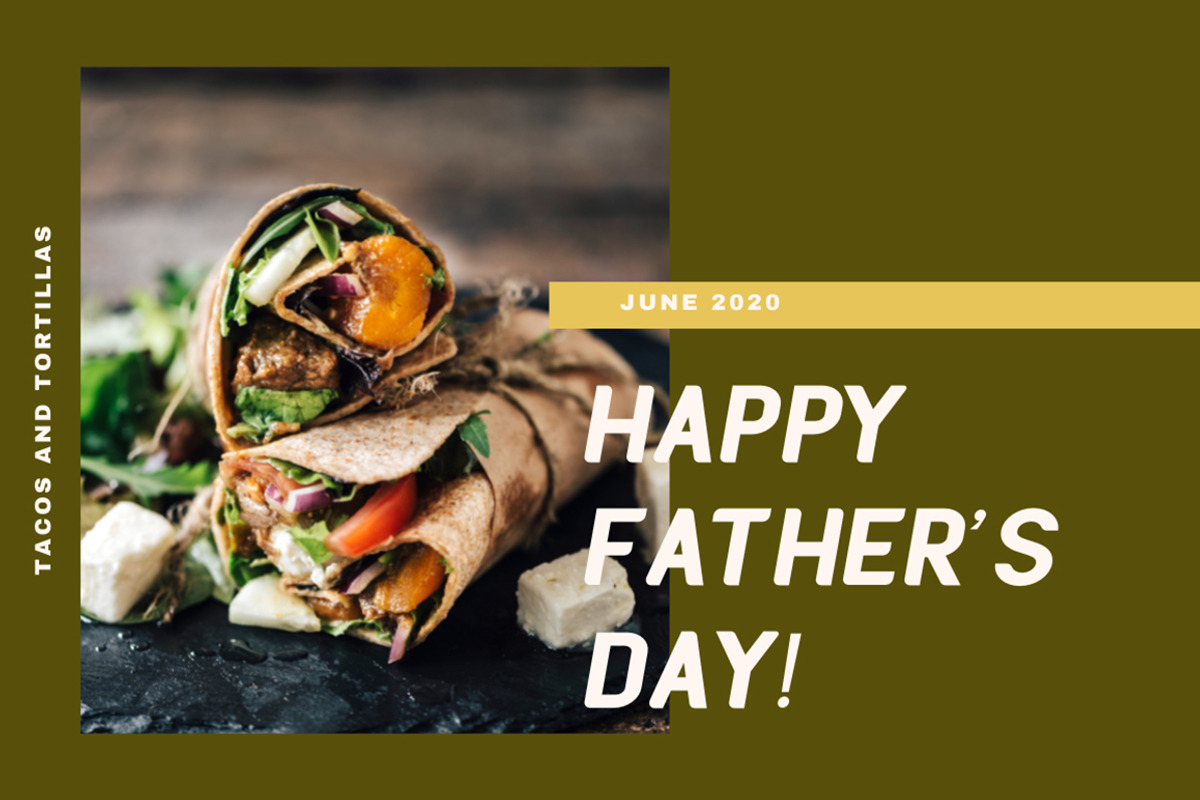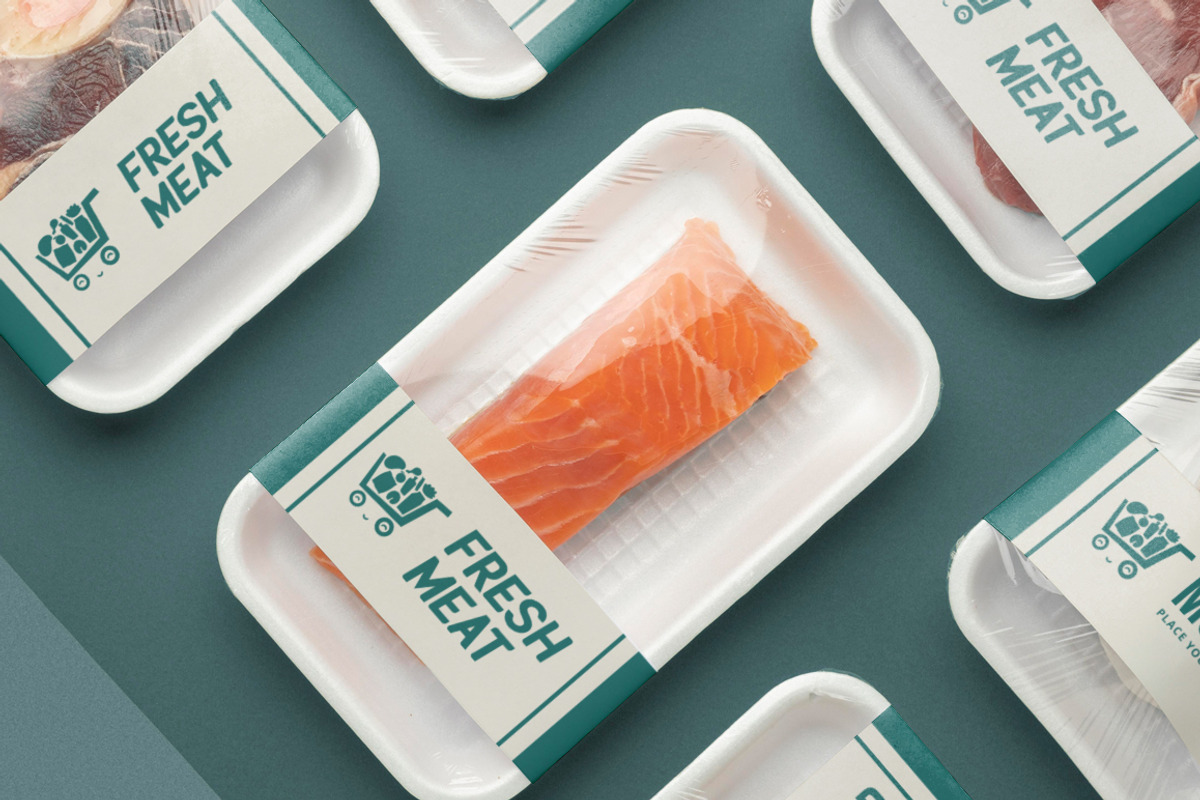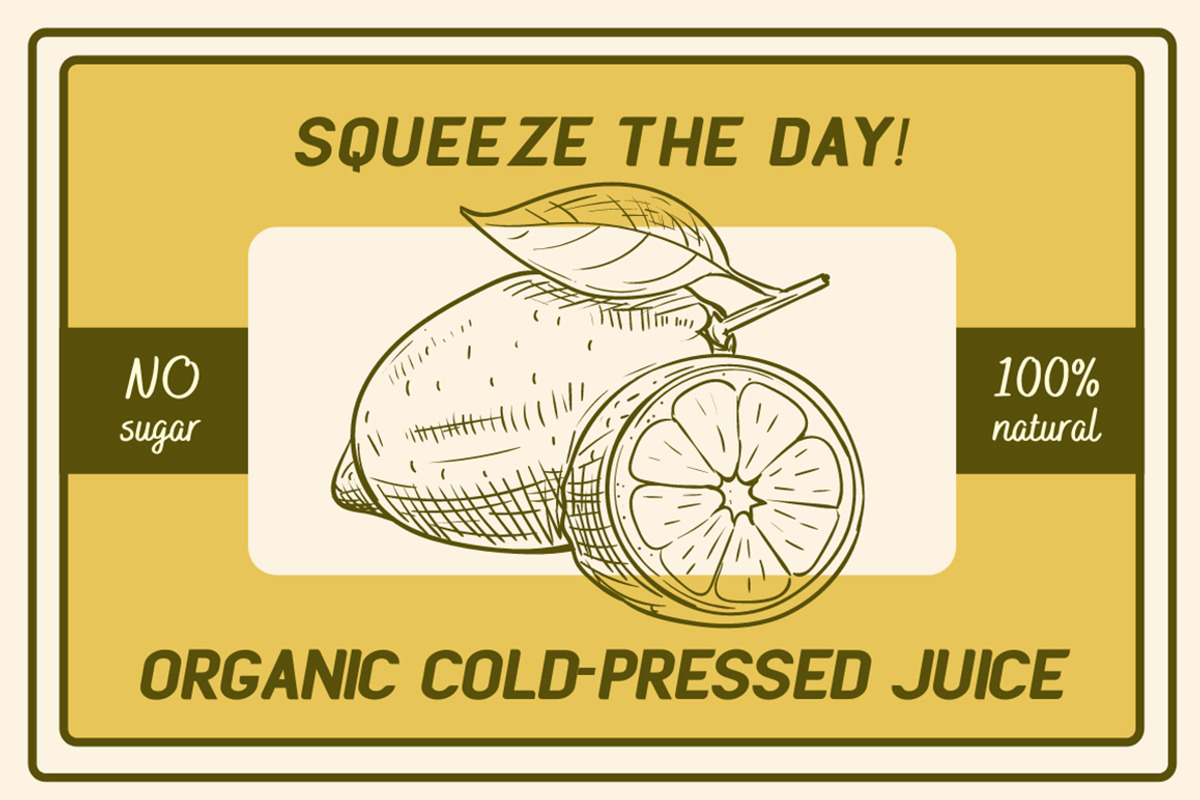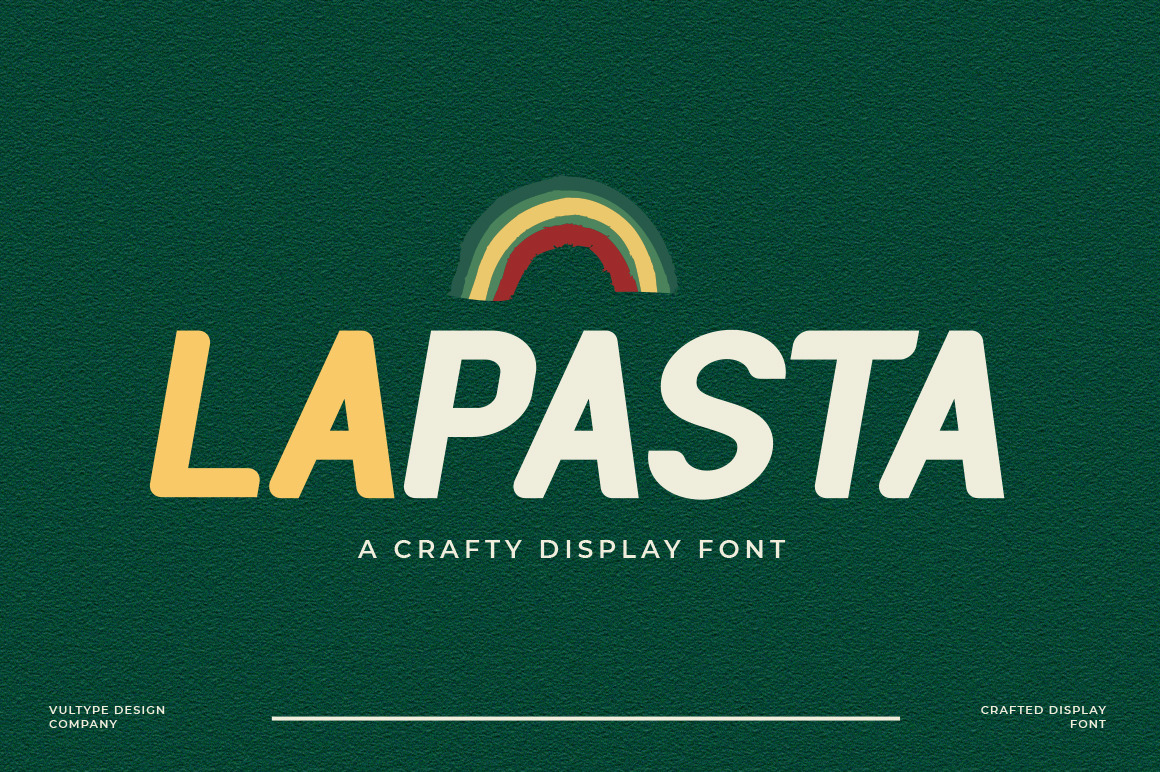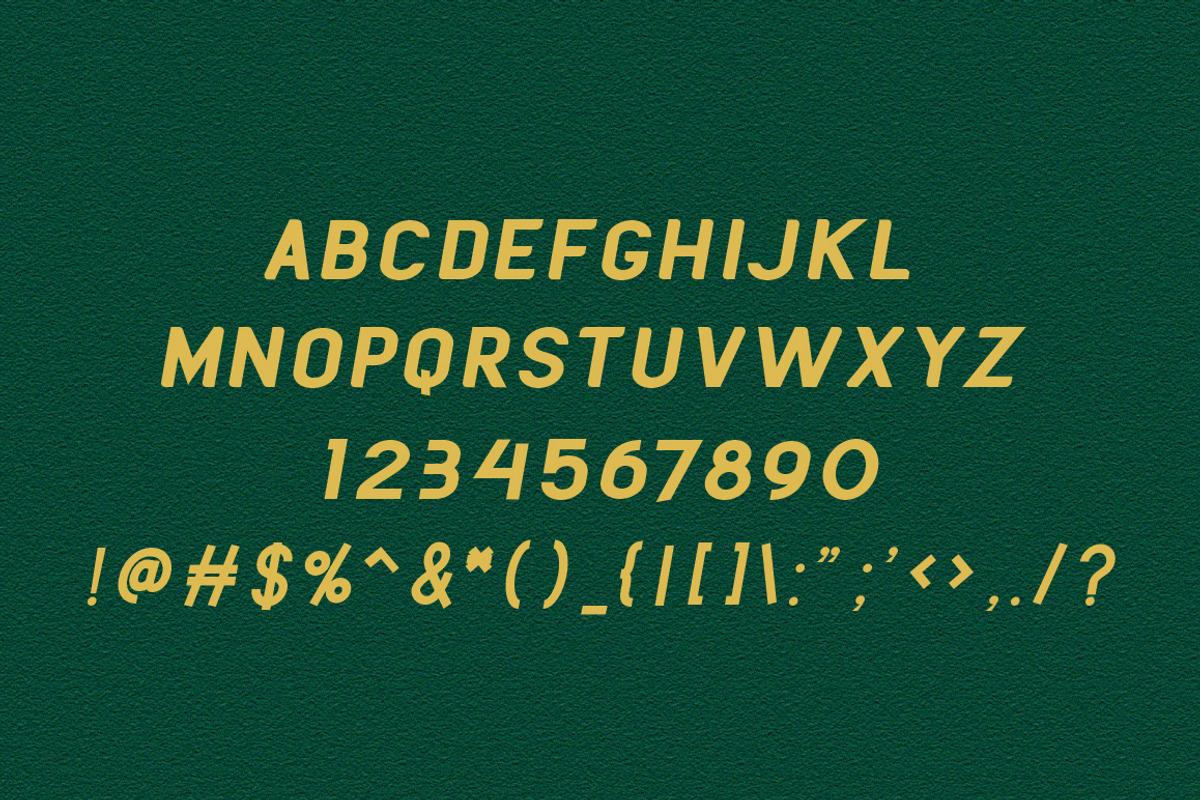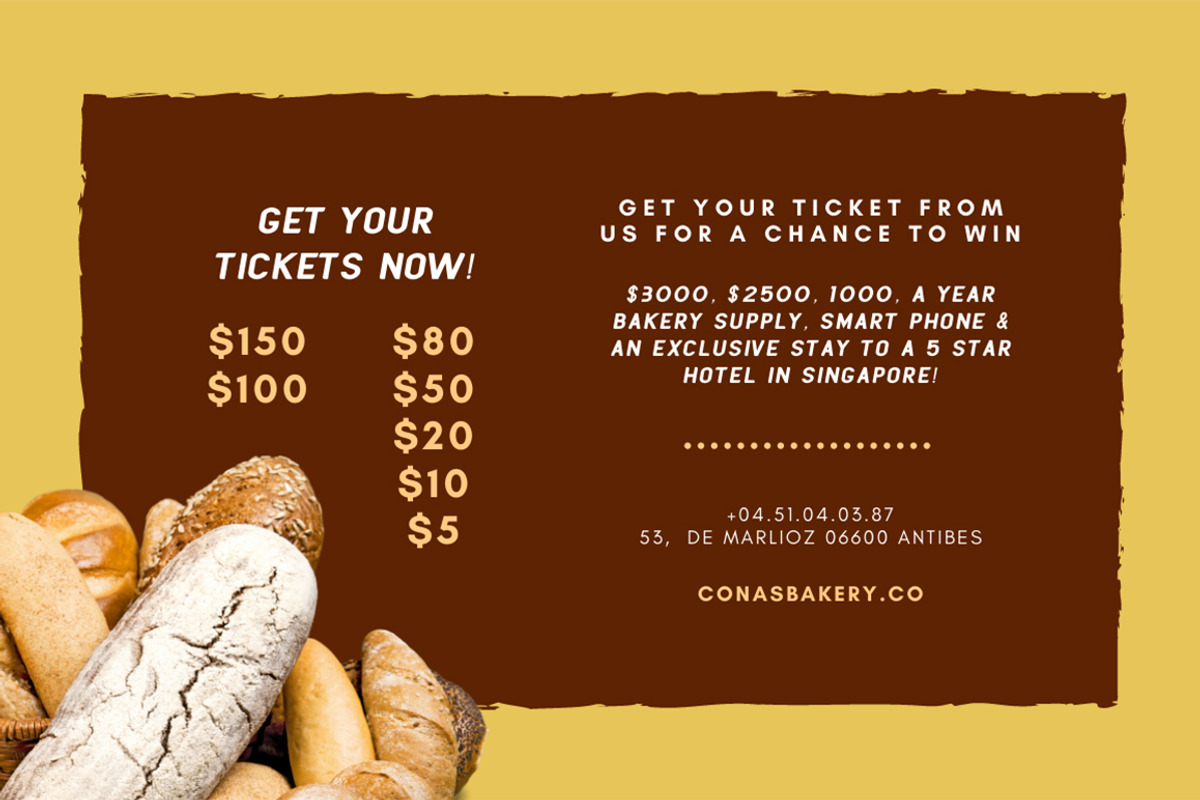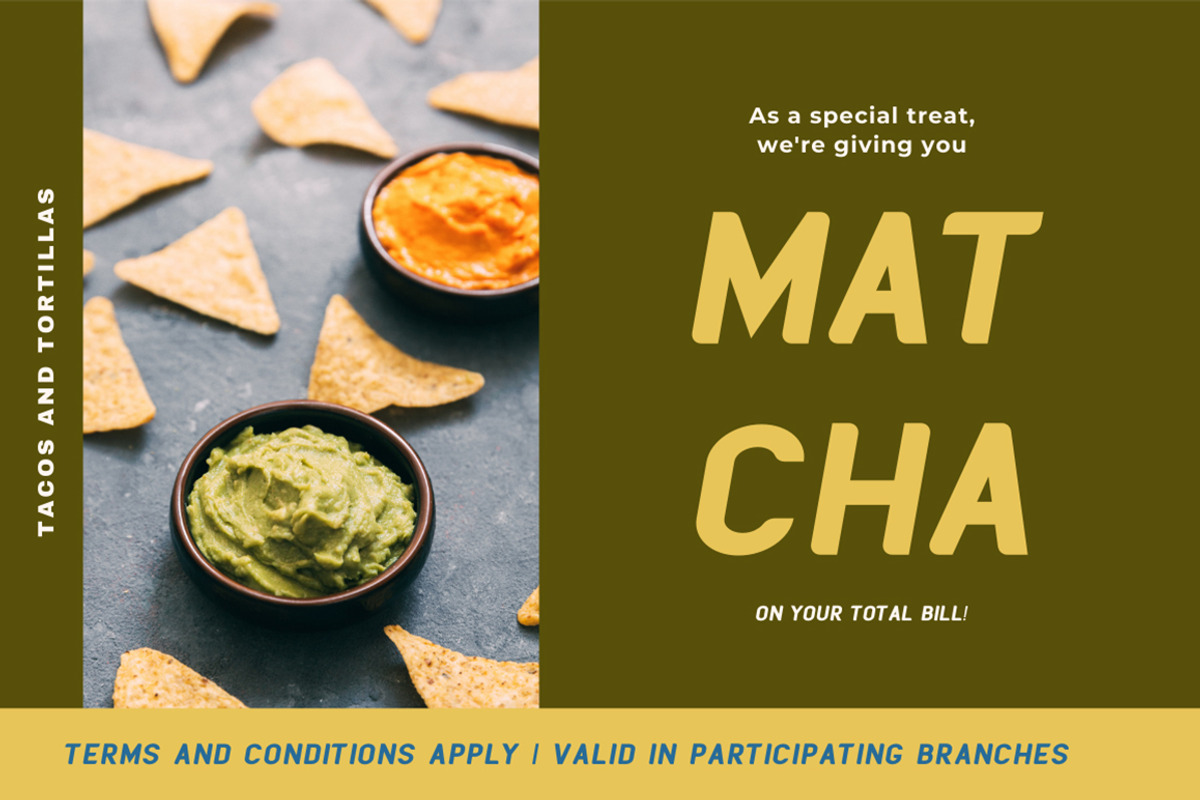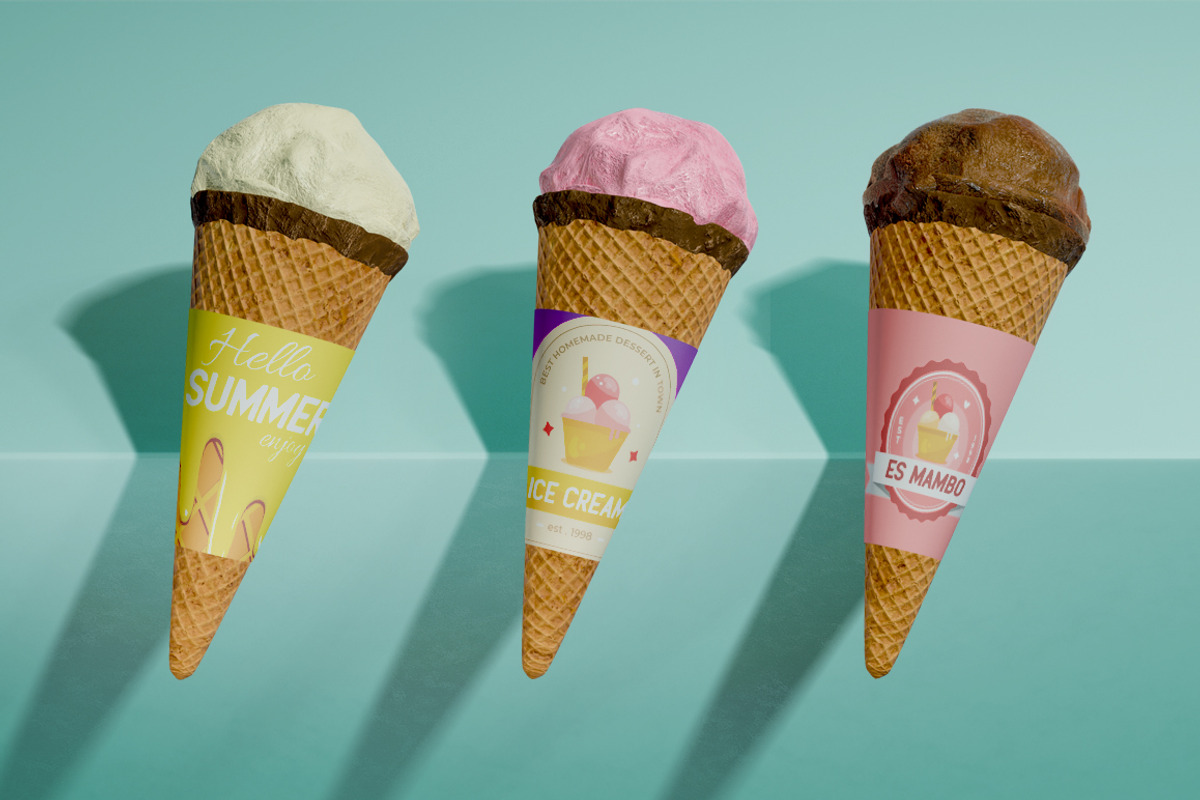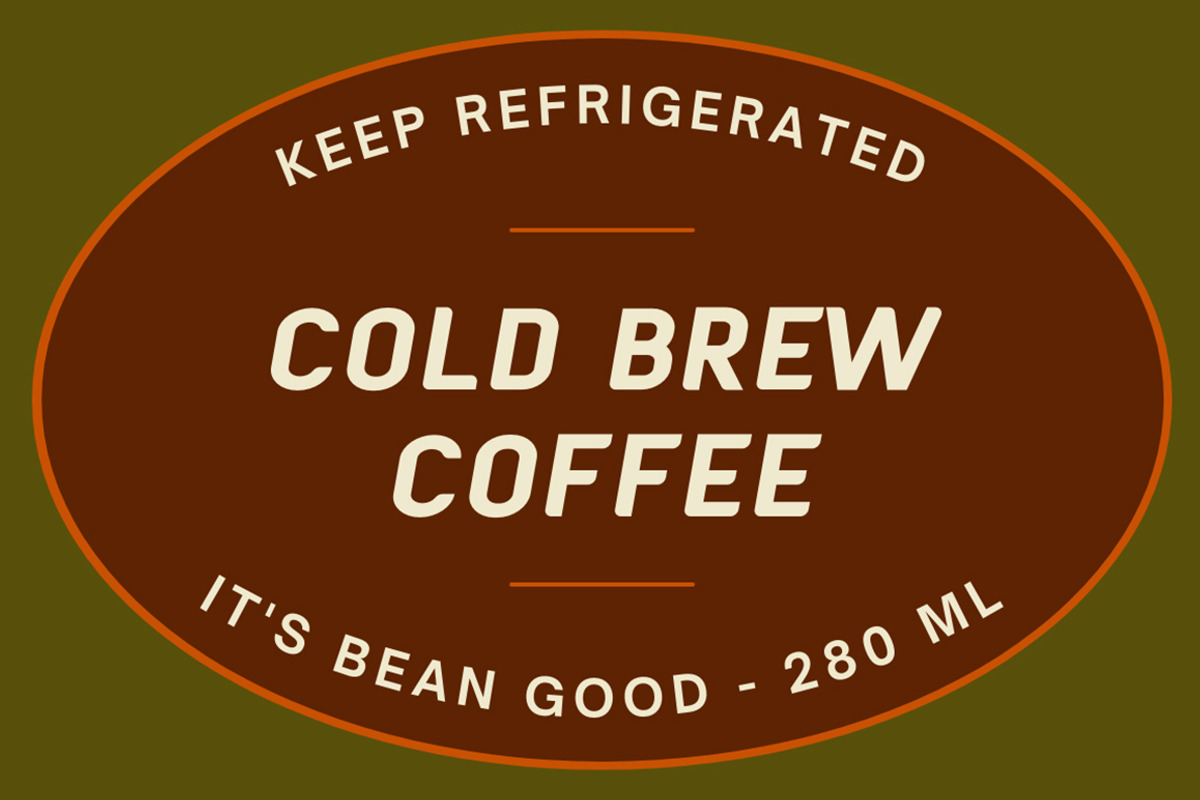
Lapasta Typeface
Lapasta font is an unique and quirky display typeface with unique curves and a dreamy flow. It loops and swoops in a delicate dance that is never boring. Use this dainty serif as a memorable logotype or header and pair it with something contrasting and clean. ( My suggestions: Futura/Lato/Montserrat )